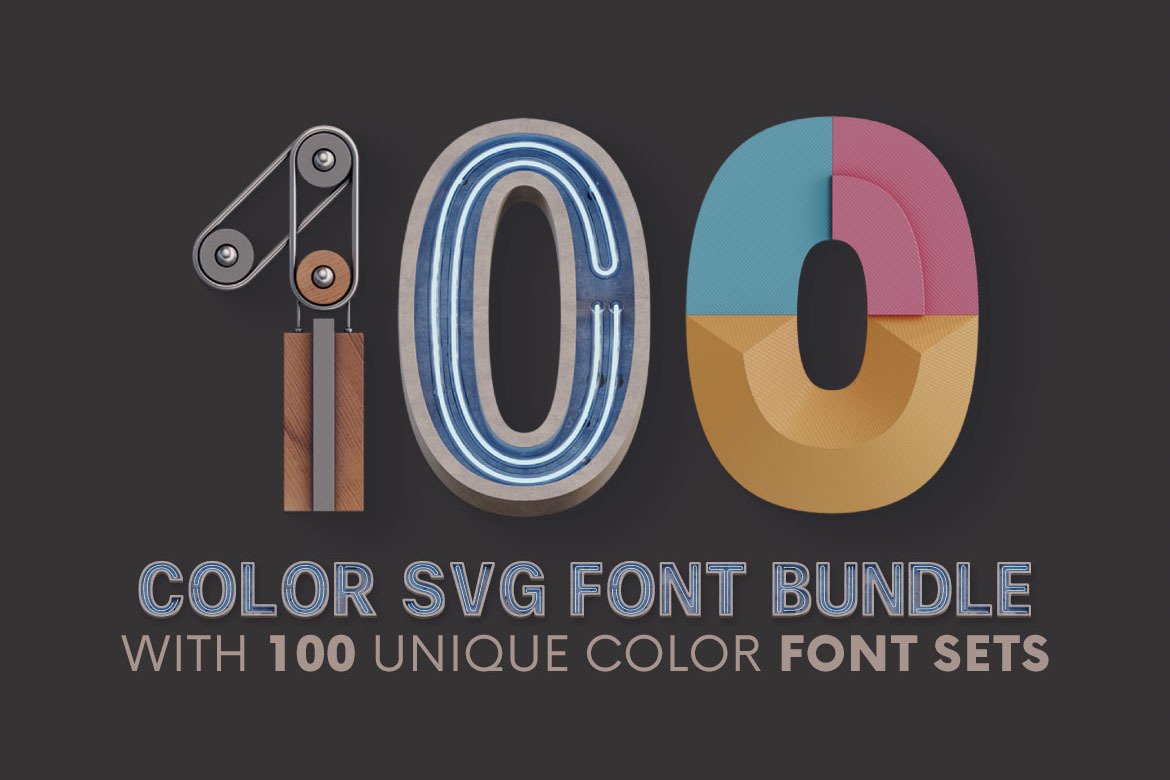
Huge Color SVG Font Bundle – 100 Set
If you already instaled some color SVG font into your system and type with any image font in your Photoshop, Illustrator or some other app – you’ll love this new & HUGE color SVG fonts bundle.
So if you’ll like type fast with amazing 3D style image letterings you need to take a look at this bundle. You’ll find here 100 super realistic color SVG font sets. Just check all previews and you’ll love this new bundle for sure.
100 super realistic & 3D style color SVG font sets for your new typography projects!